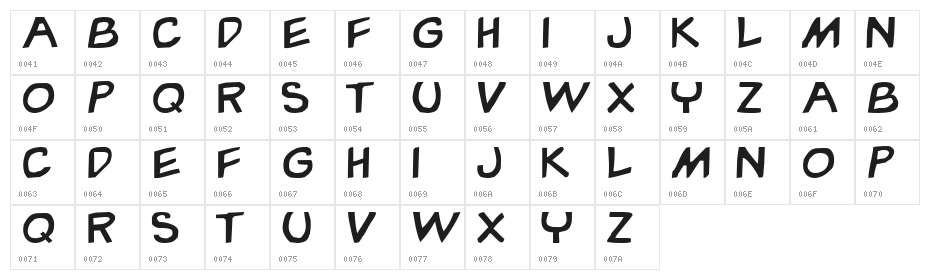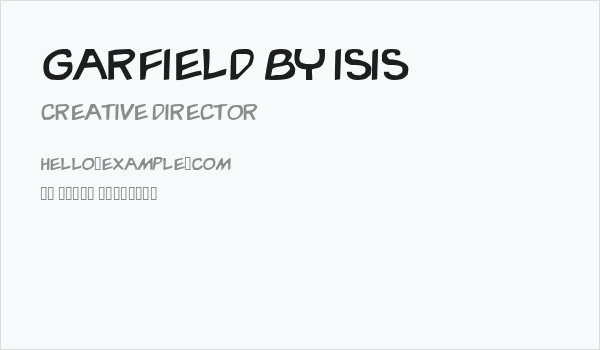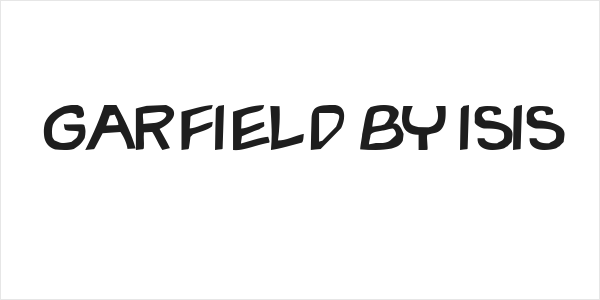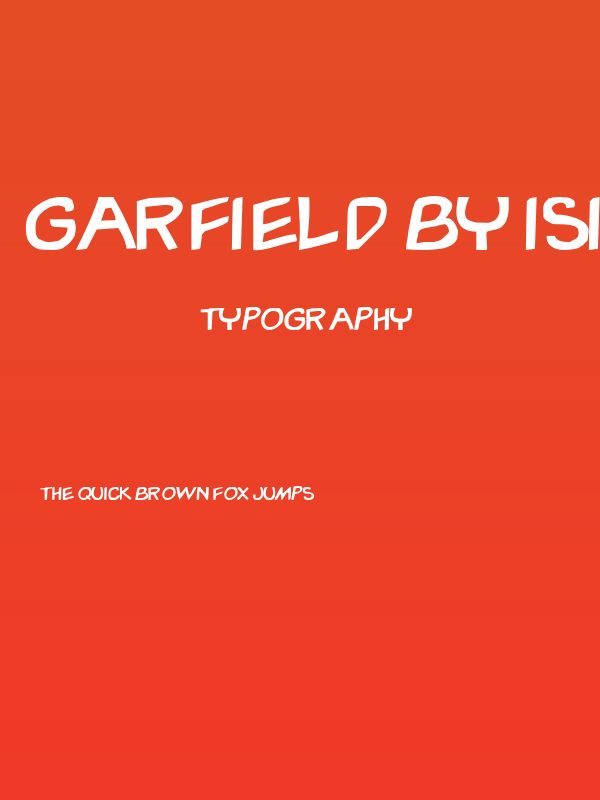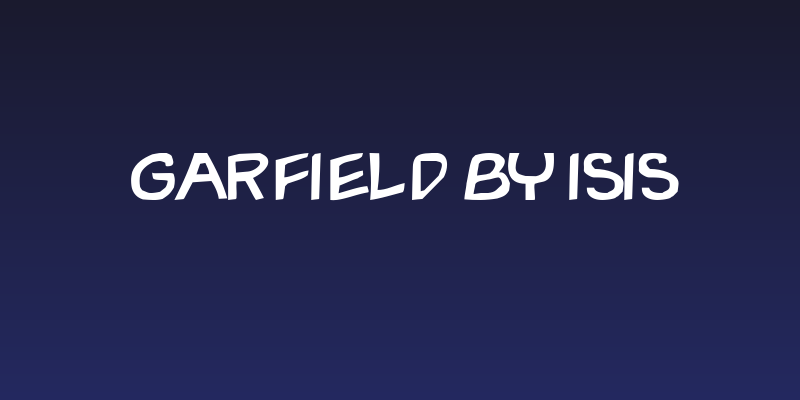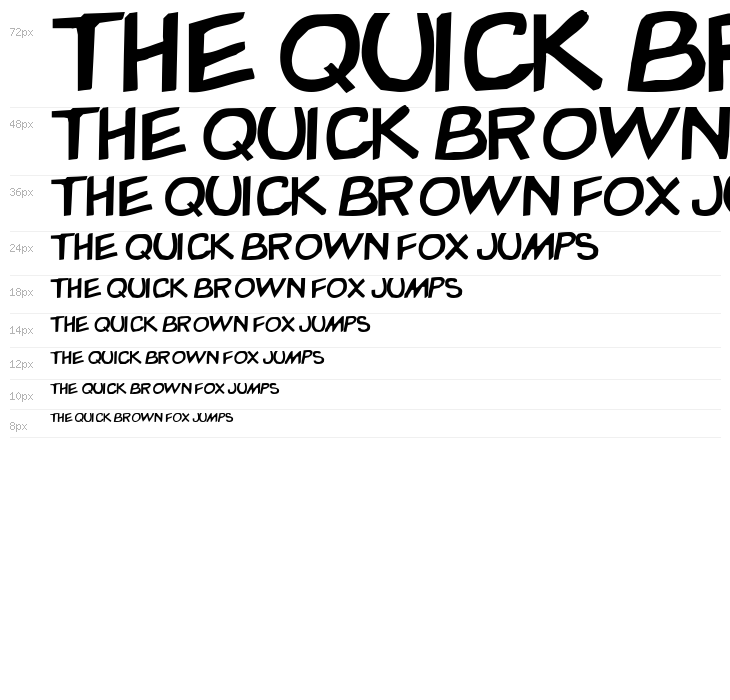
Garfield By ISIS Font
Garfield By ISIS Description
This font features a playful and dynamic style, characterized by its bold and slightly slanted letterforms. The uppercase letters have a cartoonish flair, with exaggerated curves and angles that give it a lively appearance. The lowercase letters maintain the same energetic style, ensuring consistency throughout the typeface. The font's strokes are thick and uniform, contributing to its bold presence. The overall design is reminiscent of comic book lettering, making it ideal for projects that require a fun and engaging visual impact.
Overall StylePlayful, Cartoonish
Proposed ProjectsIdeal for comic books, children's books, playful branding, and posters.